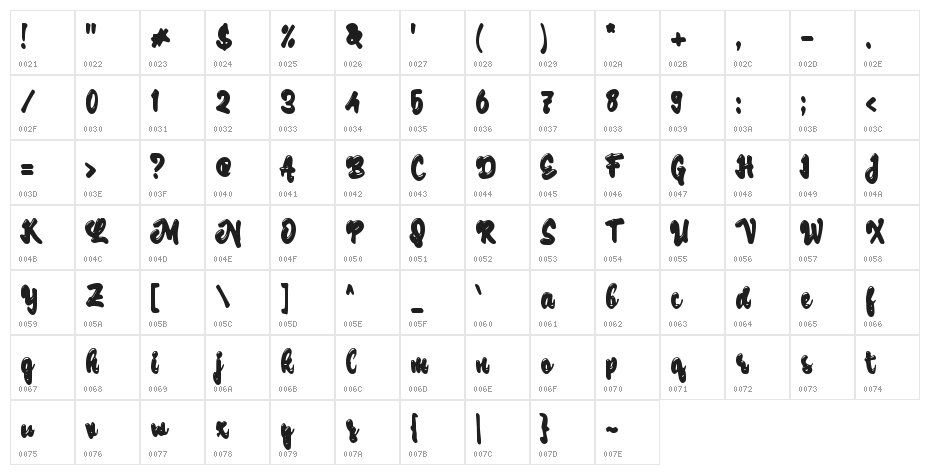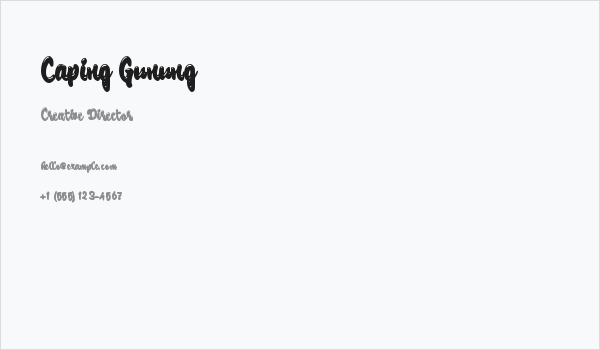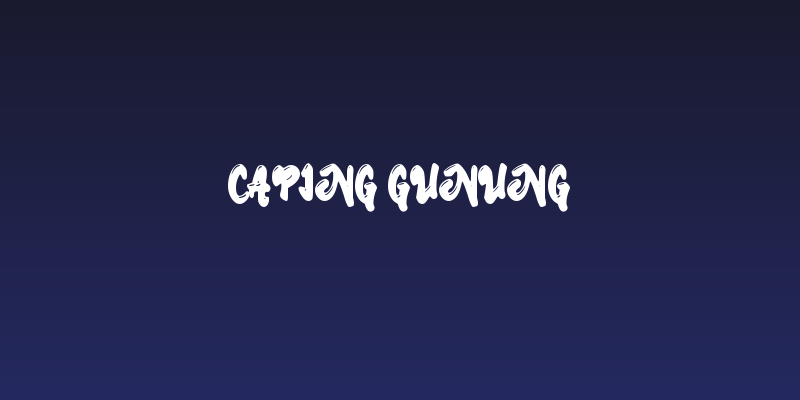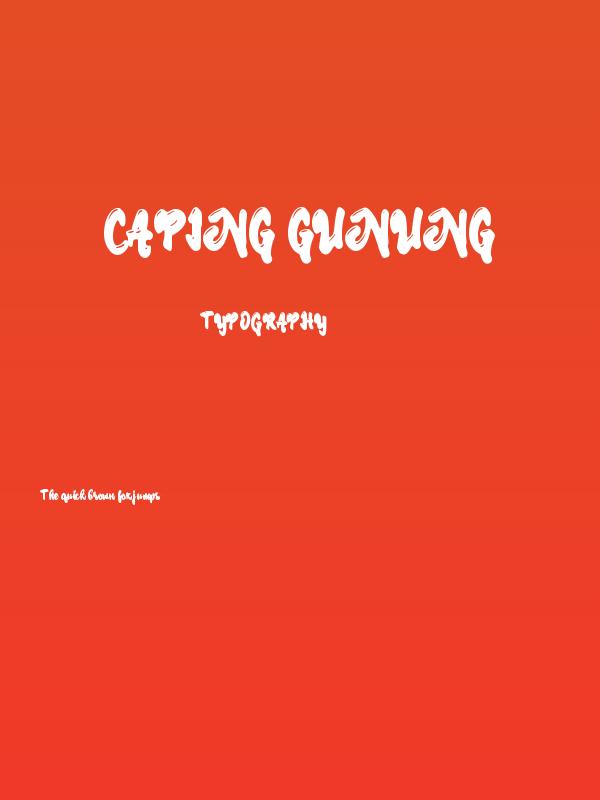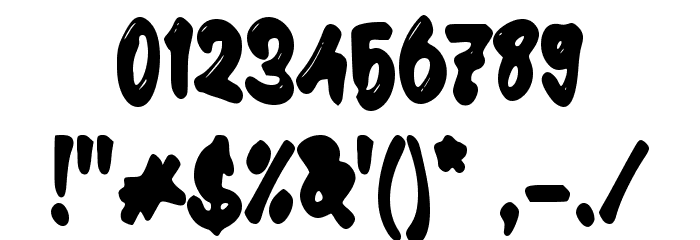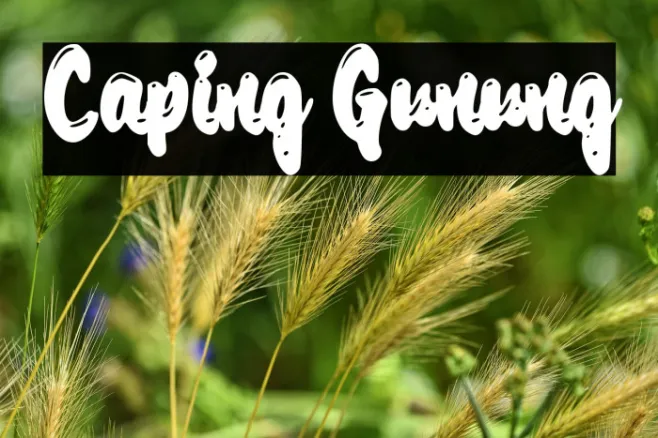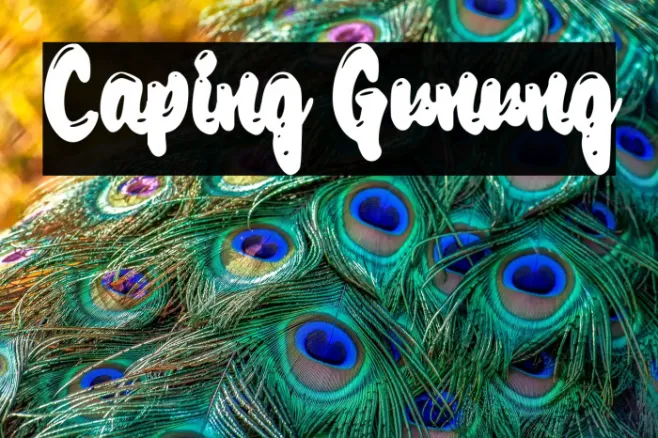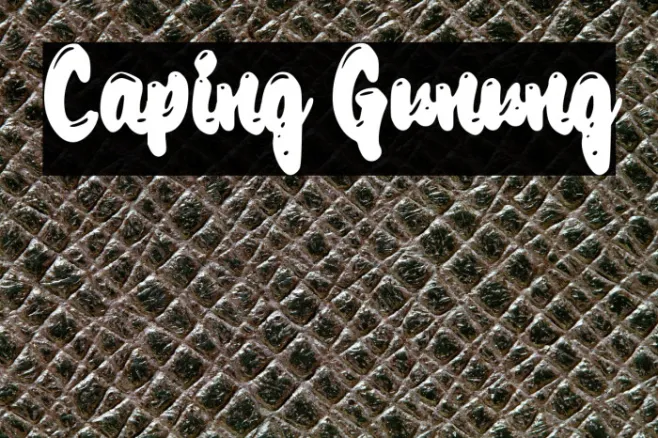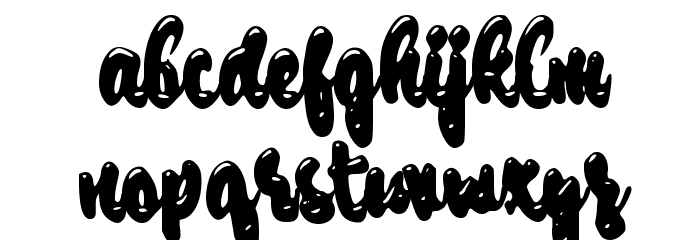
Caping Gunung Font
Caping Gunung Description
This font features a bold and playful script style with a strong presence. The letters are interconnected with a flowing, cursive design that gives a sense of movement and energy. The strokes are thick and rounded, providing a friendly and approachable feel. The uppercase and lowercase letters maintain a consistent style, with the lowercase letters offering a slightly more compact form. Numbers and special characters are included, matching the overall aesthetic with their bold and rounded shapes. The font's design is suitable for projects that require a lively and informal touch.